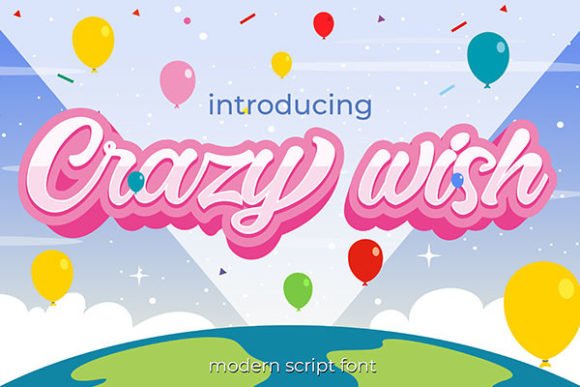
Unlock the Magic of Happy Typography
Have you ever found yourself in a moment of pure creative bliss, where ideas flow effortlessly, and the world seems full of endless possibilities? That’s where the magic of typography comes in – a world where a single font can transport us to a realm of joy and wonder. For designers and creatives, the right font can be the difference between a good design and a great one.
Enter the Crazy Wish Font, a charming and playful handwritten font designed to bring a smile to your face. With its friendly and informal vibe, Crazy Wish Font is perfect for projects that require a touch of happiness and whimsy. Whether you’re working on a children’s game, a happy-related design, or a logo that needs a little extra personality, this font is sure to deliver.
Crazy Wish Font Key Features
- Font Family: Crazy Wish Font
- Unique Characteristics: Includes 180+ unique characters, 60+ swashes, and 20+ ligatures for a whimsical and playful feel
- Language Support: Supports Latin, Cyrillic, and Greek alphabets, making it suitable for a wide range of languages
Crazy Wish Font Review
I recently had the chance to dive into the “Crazy Wish Font”, and I’m here to share my honest thoughts on this quirky addition to the world of typography.
- Unique style: The font’s eclectic blend of shapes and lines creates a visually striking effect that’s sure to grab attention.
- Playful feel: Crazy Wish Font captures a carefree spirit, making it perfect for designs that need a lighthearted touch.
- Flexibility: This font works well in a variety of contexts, from headlines to body text, and even as a standalone graphic element.
- Limited legibility: At times, the font’s irregular shapes can make it challenging to read, especially in smaller sizes.
- Not suitable for all audiences: The font’s whimsical nature may not appeal to everyone, particularly in more formal or professional settings.
- May require adjustments: Depending on the specific use case, you may need to adjust the font size, color, or layout to ensure it reads clearly and effectively.
Overall impression
Crazy Wish Font is a bold and attention-grabbing addition to any design project. While it may not be the best choice for every situation, it’s a great option when you need to add some visual interest and personality to your work.
Crazy Wish Font Practical Application Guide
Tip: Use Crazy Wish Font for titles and headings to add a touch of whimsy to your design.
Tip: Use Crazy Wish Font for creative typography and add a touch of personality to your design.
Tip: Use Crazy Wish Font for presentations and documents that require a playful touch.
Crazy Wish Font is perfect for:
- Party and event invitations
- Children’s books and educational materials
- Marketing materials and social media graphics
Tip: Use Crazy Wish Font to add a touch of fun and whimsy to your design, and to stand out from the crowd
Alternatives to “Crazy Wish Font” for Designers
Pacifico is a beautiful, elegant script font that is perfect for adding a touch of sophistication to your designs. It’s ideal for use in invitations, wedding designs, and other high-end branding materials. Compared to Crazy Wish Font, Pacifico has a more refined and polished feel, making it suitable for more formal and professional applications.
Great Vibes is a modern, handwritten font that is great for adding a personal touch to your designs. It’s perfect for use in social media graphics, posters, and other promotional materials. Compared to Crazy Wish Font, Great Vibes has a more laid-back and casual feel, making it suitable for younger audiences and creative projects.
Alex Brush is a elegant, handwritten font that is perfect for use in invitations, greeting cards, and other paper-based materials. It’s ideal for adding a touch of whimsy and personality to your designs. Compared to Crazy Wish Font, Alex Brush has a more delicate and refined feel, making it suitable for more formal and creative applications.
Dancing Script is a elegant, cursive font that is perfect for use in titles, headings, and other emphasis areas. It’s ideal for adding a touch of elegance and sophistication to your designs. Compared to Crazy Wish Font, Dancing Script has a more fluid and dynamic feel, making it suitable for high-end branding materials and creative projects.
Q: Does Crazy Wish Font support special characters and languages?
Yes, the Crazy Wish Font supports a wide range of special characters, including punctuation marks, numbers, and currency symbols. It also supports multiple languages, including English, Spanish, French, German, and many others. However, please note that the font’s language support may vary depending on the file format and software used.